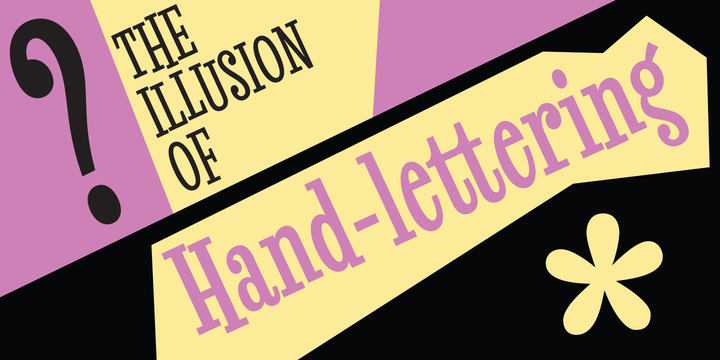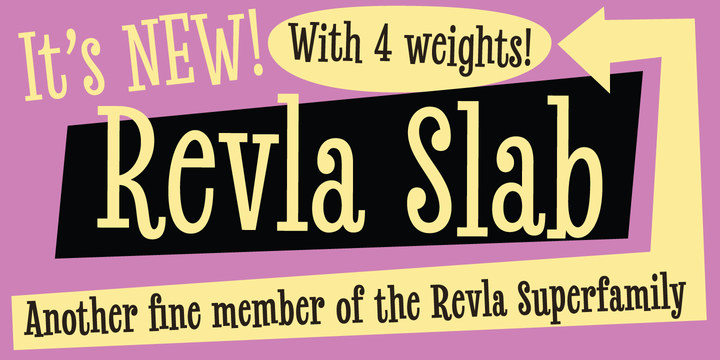
Revla Slab Font Family
This is Revla Slab. It has the same exuberant charm as its siblings (Revla Sans and Revla Serif) with a touch more chunk. OpenType contextual alternates make for text that is lively and bouncy, without the monotony of obviously repeating letterforms.